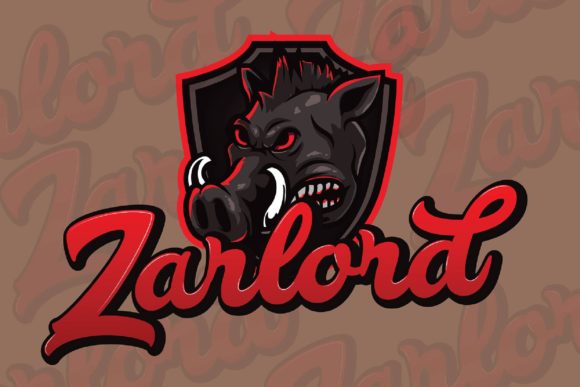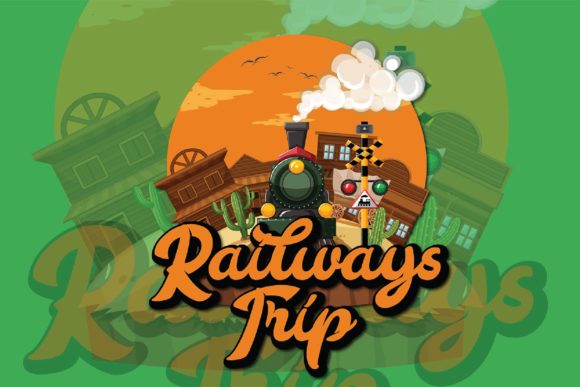
Aloha Font
db-ku.com - Script & Handwritten -- Aloha is a retro handwritten font with an extraordinary feel. Use it to turn any design project into a standout!